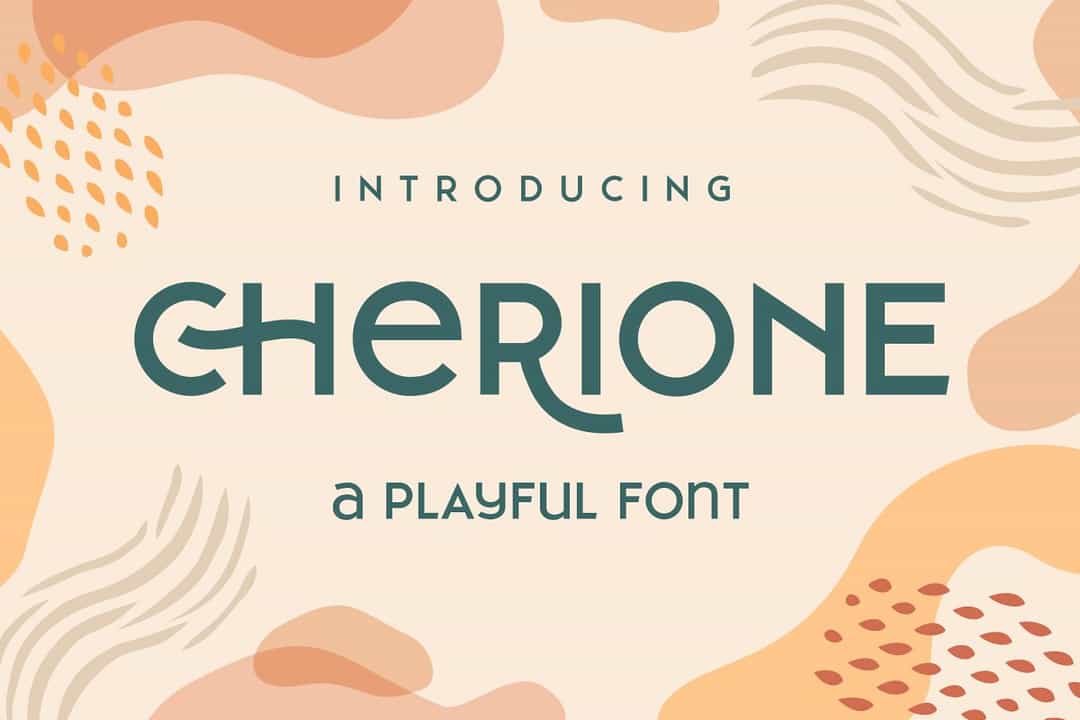
Cherione font is a new addition in the Sans Serif category of fonts that is launched in the market. This modern sans-serif font has an aggressive look due to the fact that it has lower case letters of the same height as the upper case letters thus providing a new edgy look for the fashion and minimalist niches. Ideal for use in elegant children’s events and designs that are related to fashion.